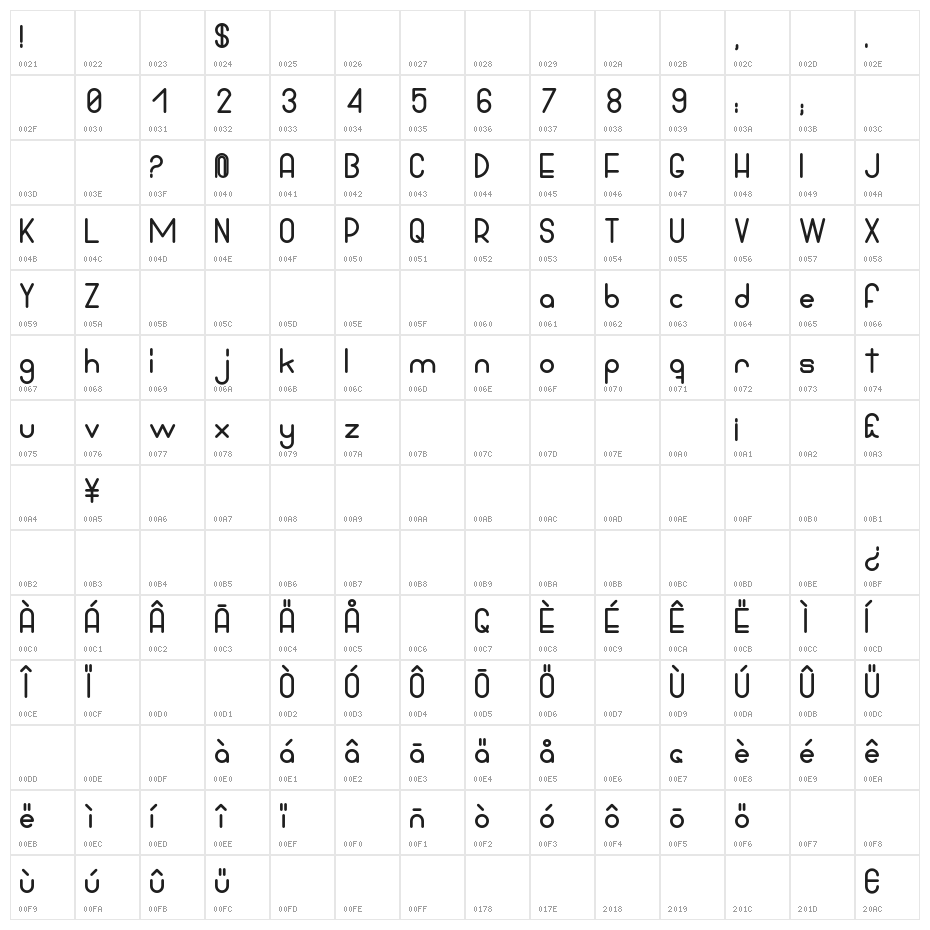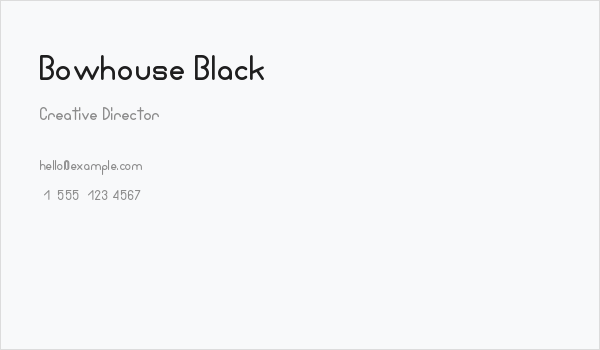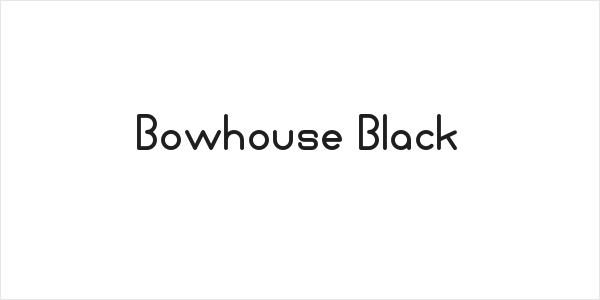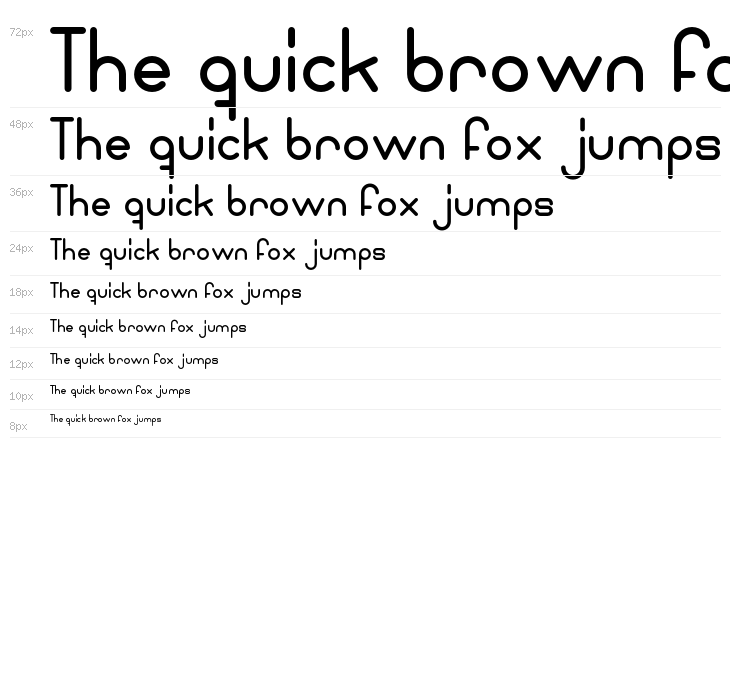
Bowhouse Black Font
Bowhouse Black Description
This font features a bold, rounded style with a modern and playful aesthetic. The characters are evenly spaced with a consistent weight, giving it a clean and approachable look. The uppercase letters are tall and geometric, while the lowercase letters maintain a similar rounded form, enhancing readability. The numerals and special characters follow the same design principles, ensuring uniformity across all glyphs. This font's unique style makes it suitable for a variety of creative applications.
| Proposed Projects | Ideal for branding, children's books, playful posters, and modern web design. |